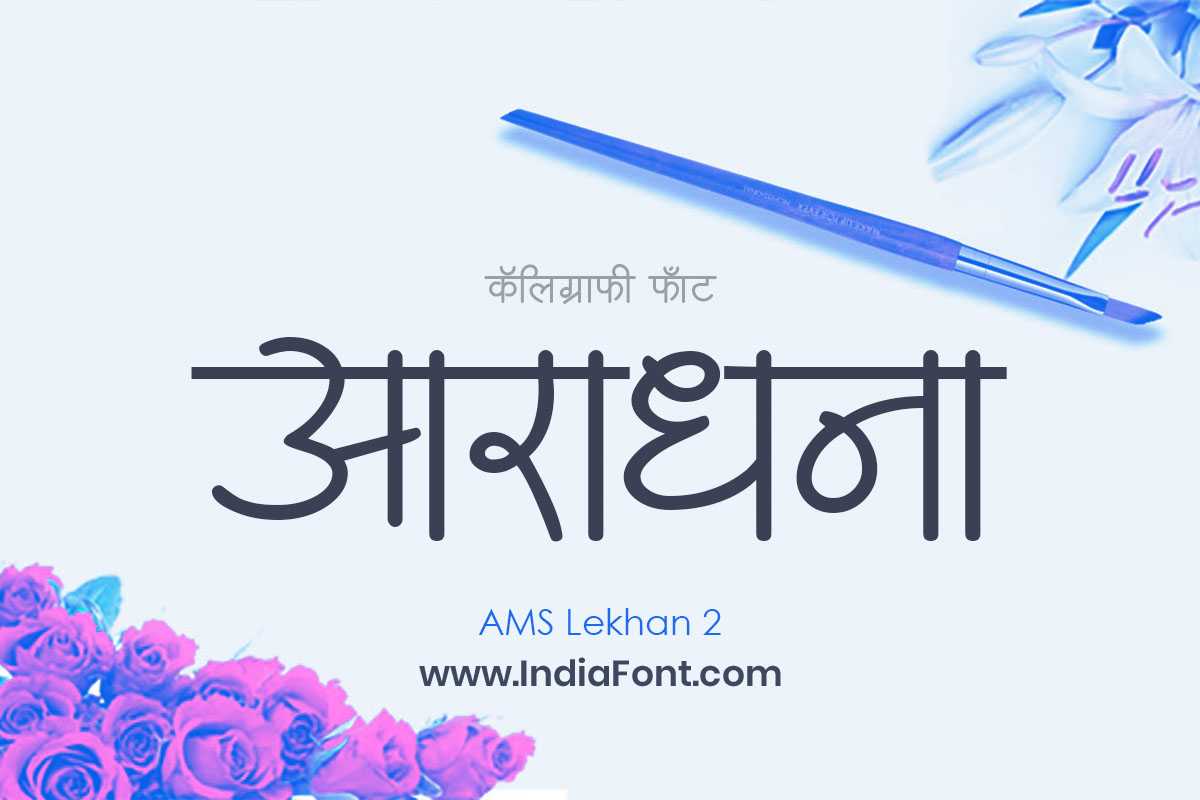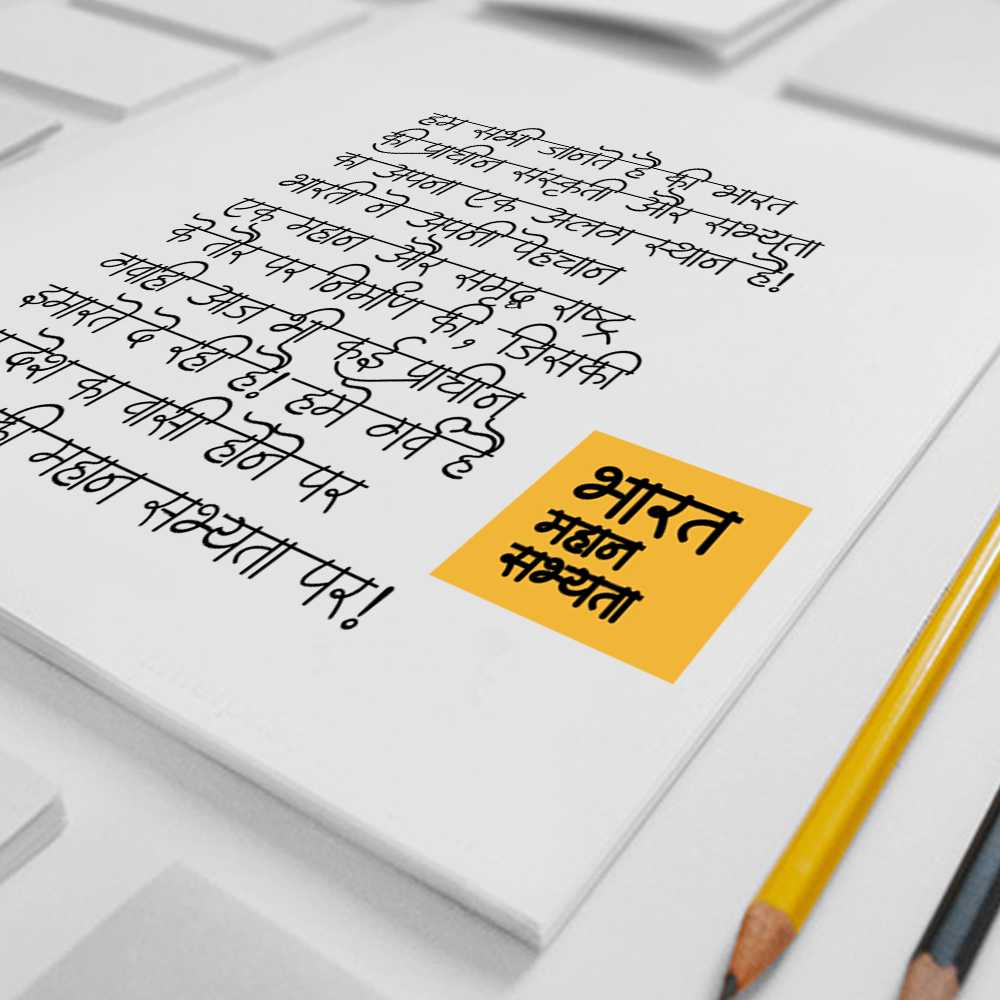
AMS Lekhan 2
Experience the clarity and legibility of AMS Lekhan 2, a font designed for publications and readability. Whether you're seeking free AMS fonts, specifically looking for AMS Lekhan 2 font download options, or exploring AMS publication fonts, AMS Lekhan 2 ensures your content shines.
About AMS Lekhan 2 Font
Experience the clarity and legibility of AMS Lekhan 2, a font designed for publications and readability. Whether you're seeking free AMS fonts, specifically looking for AMS Lekhan 2 font download options, or exploring AMS publication fonts, AMS Lekhan 2 ensures your content shines. This publication font combines elegance with functionality, making it perfect for various design applications.
AMS Lekhan 2 is a professionally crafted publication typeface that brings clarity and style to your projects. Designed with attention to detail, it supports hindi and marathi characters flawlessly.
Whether you're working on wedding-materials, invitations, logos, or other creative projects, AMS Lekhan 2 delivers consistent performance across both digital and print media. This carefully designed typeface ensures readability and visual appeal in all your design work.
About AMS Lekhan 2 Typography Style
AMS Lekhan 2 is a professionally crafted publication font that exemplifies modern Hindi typography design. This free font is perfect for designers seeking professional branding and logo design projects.
Available in 1 weight and supporting hindi, marathi scripts, AMS Lekhan 2 offers exceptional versatility for both digital and print media. Whether you're working on wedding-materials, invitations, logos, this carefully designed typeface ensures consistent quality and professional results across all your typography projects.